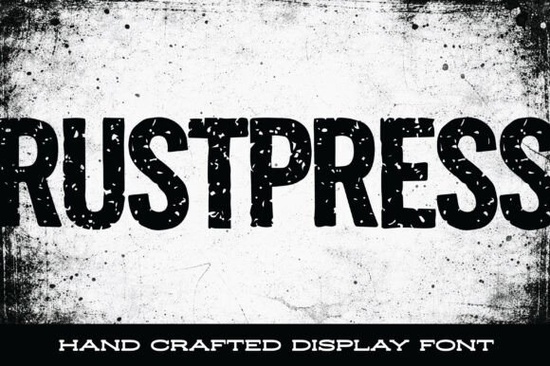
If you're working on a project that needs to look tough, authentic, and full of character without tipping into visual chaos Rustpress Font might be exactly what you’re after. This industrial-style display font blends structure with raw texture, giving your designs the feel of something stamped into aged metal or printed with worn ink. It’s not just another distressed typeface; it’s built with intention, so every rough edge and fractured line feels purposeful.
Designed for creators who value both grit and readability, Rustpress works especially well in contexts where you want your message to stand out but still feel grounded think packaging for artisan goods, bold apparel graphics, event posters, or branding for workshops, breweries, or vintage-inspired businesses.
When should you use a distressed industrial font like Rustpress?
Distressed fonts aren’t for every project, but they shine when your goal is to convey authenticity, heritage, or ruggedness. Rustpress avoids looking messy by keeping its letterforms clean underneath the surface texture. That balance makes it usable even at larger sizes without losing legibility.
You’ll get the best results when pairing it with:
- Minimal layouts that let the texture breathe
- Neutral or earthy color palettes (charcoal, rust, olive, cream)
- Supporting sans-serifs or clean serif fonts for body text
How does Rustpress compare to other textured display fonts?
Many distressed fonts rely heavily on random grunge effects, which can make them hard to read or inconsistent across characters. Rustpress stands out because its wear-and-tear feels intentional like each letter was pressed under pressure and left to weather naturally. The result? A cohesive look that still carries personality.
Unlike overly chaotic alternatives, Rustpress maintains strong underlying geometry. That means it scales well and holds up in both digital mockups and physical prints important if you’re selling merch or creating signage.
Who is this font really for?
If you run a small business selling handmade goods like leatherwork, candles, or cold brew coffee Rustpress can add instant credibility through visual storytelling. Print-on-demand sellers will appreciate how well it translates to T-shirts, mugs, and tote bags without needing extra effects.
Hobbyists and crafters using Cricut or Silhouette machines may need to simplify the design slightly (due to intricate textures), but for screen printing, heat transfer vinyl, or digital art, it’s ready to go. Designers building brand identities for clients in automotive, construction, or vintage retail will find it a reliable tool for logos and headlines.
Just keep in mind: this is a display font. It’s meant for short bursts of text logos, headlines, labels not paragraphs. Pair it wisely, and it’ll do the heavy lifting.
Tips for using Rustpress effectively
- Avoid over-layering: Don’t add extra grunge brushes or noise it already has built-in texture.
- Test print quality: If you’re producing physical goods, check how the fine cracks reproduce at different sizes.
- Use generous spacing: Slight letter-spacing can help maintain clarity, especially in uppercase.
- Less is more: One impactful headline in Rustpress often beats multiple uses throughout a layout.
And remember, while it’s tempting to pair it with other distressed fonts, contrast usually works better. Try combining it with a smooth, modern sans-serif to let Rustpress truly stand out.
Before you finalize your design, ask yourself: does this font support the story I’m trying to tell? If your brand or project values resilience, craftsmanship, or a touch of rebellion, Rustpress isn’t just decorative it’s communicative.